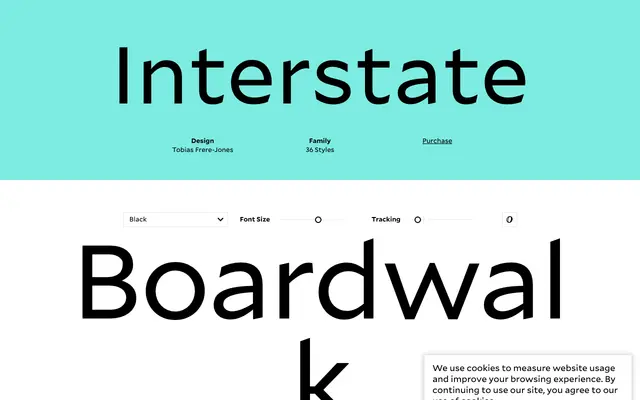
Interstate
A typeface drawn from Highway Gothic, the mid-century lettering system developed for the American Interstate Highway System, redrawn by Tobias Frere-Jones across 36 styles.
Frere-Jones took the unlikely source of Highway Gothic — the federal signage alphabet developed from 1949 by road engineers and sign painters — and rebuilt it as a full type family, preserving the cramped uppercase letters, the abrupt lowercase g descender and the blunt, stumbling charm of the originals. The family runs from Hairline to Ultra across Normal, Condensed and Compressed widths, with italics present across most weights. OpenType features including tabular figures, fractions and auxiliary figures are available in the core text weights.
Derived from Highway Gothic, the federal standard for American road signage, Interstate carries the open counters, uneven proportions and blunt terminals of a workhorse lettering system redrawn as a text and display typeface.